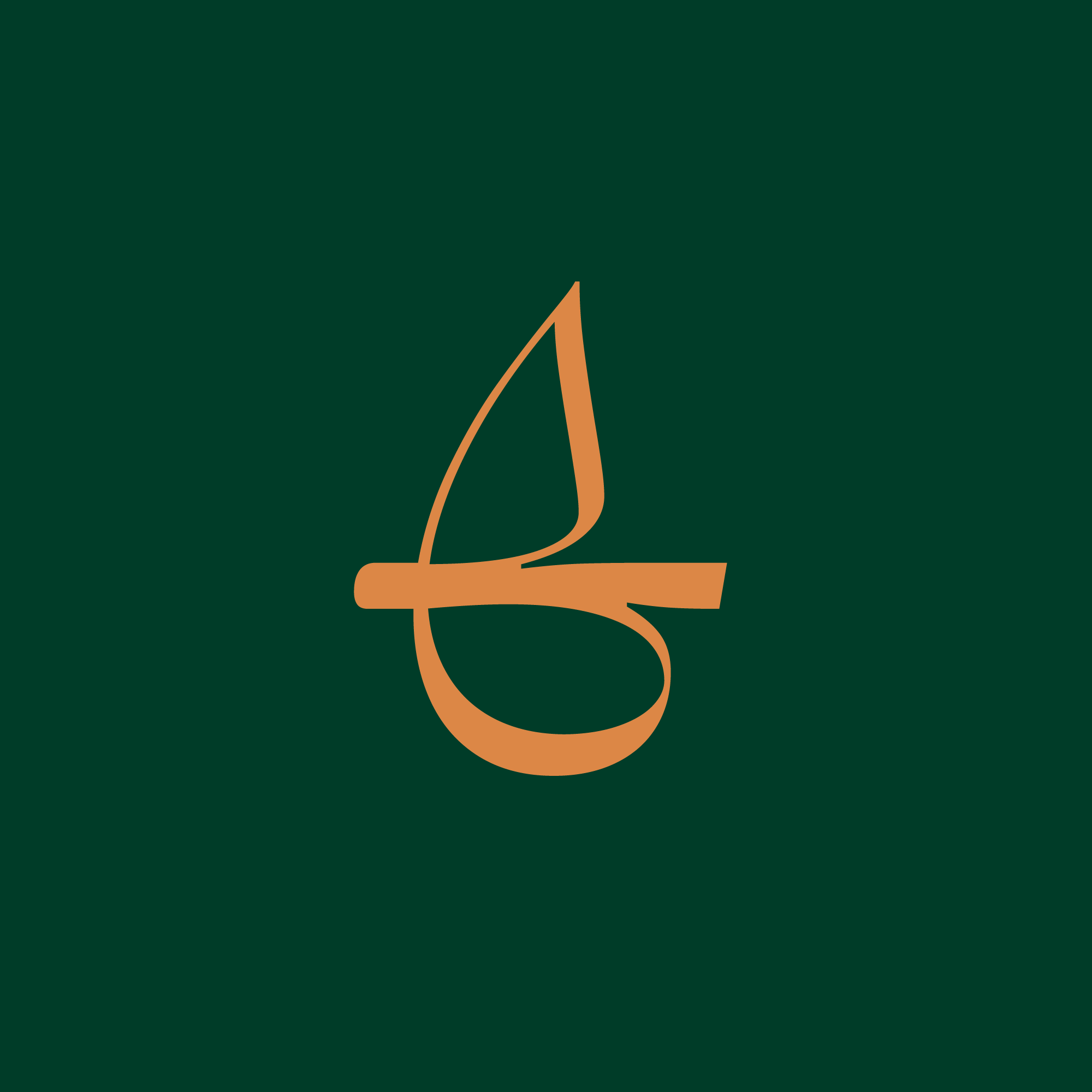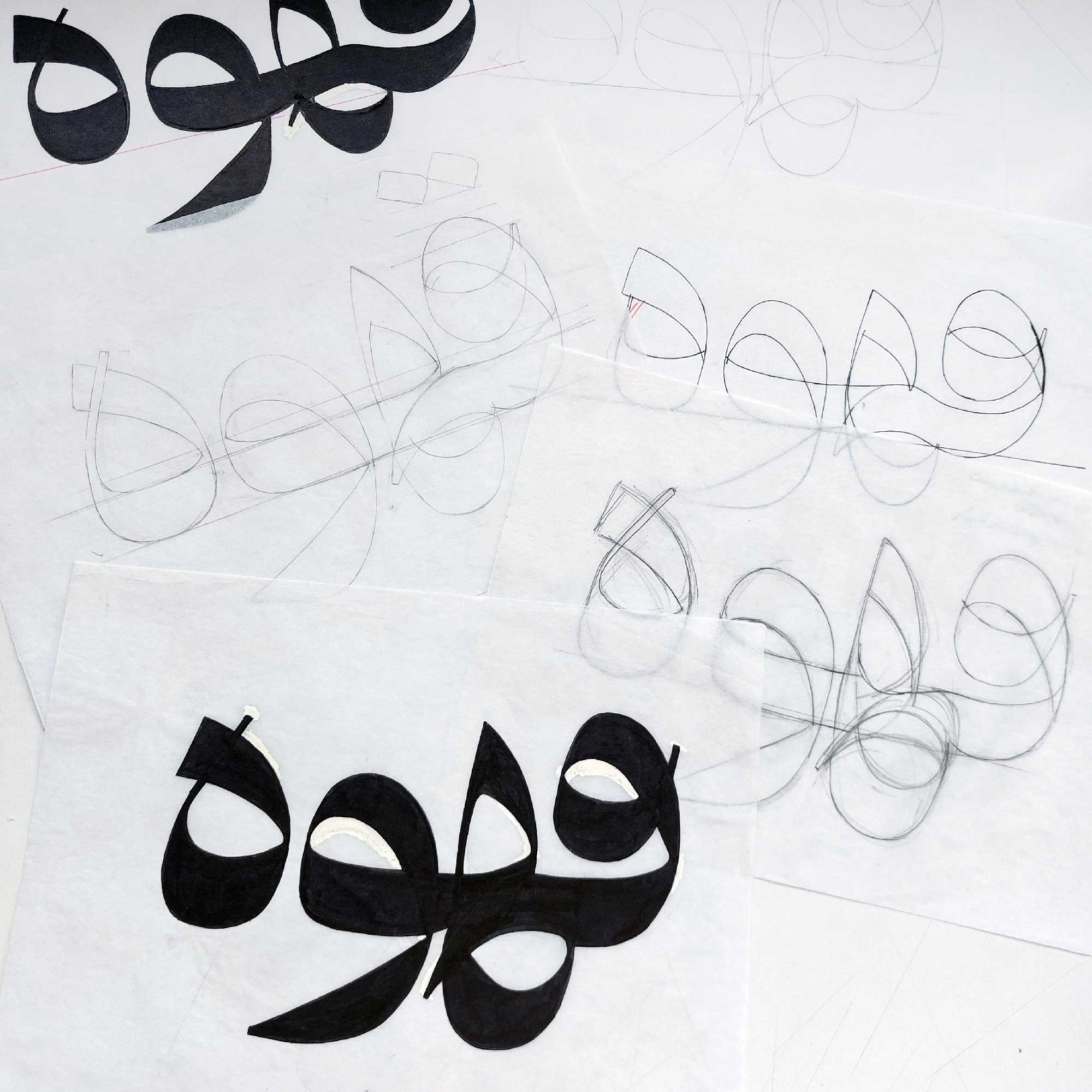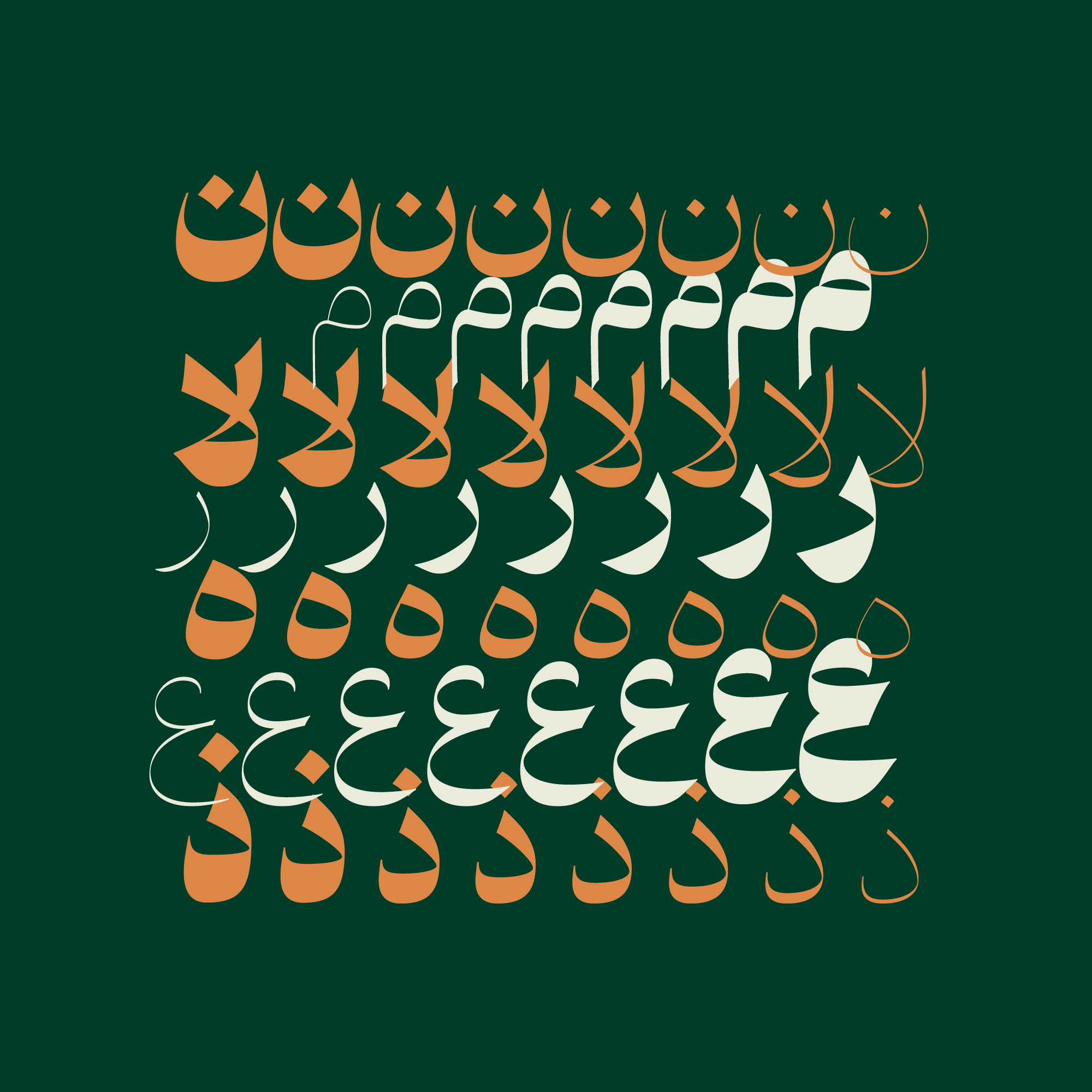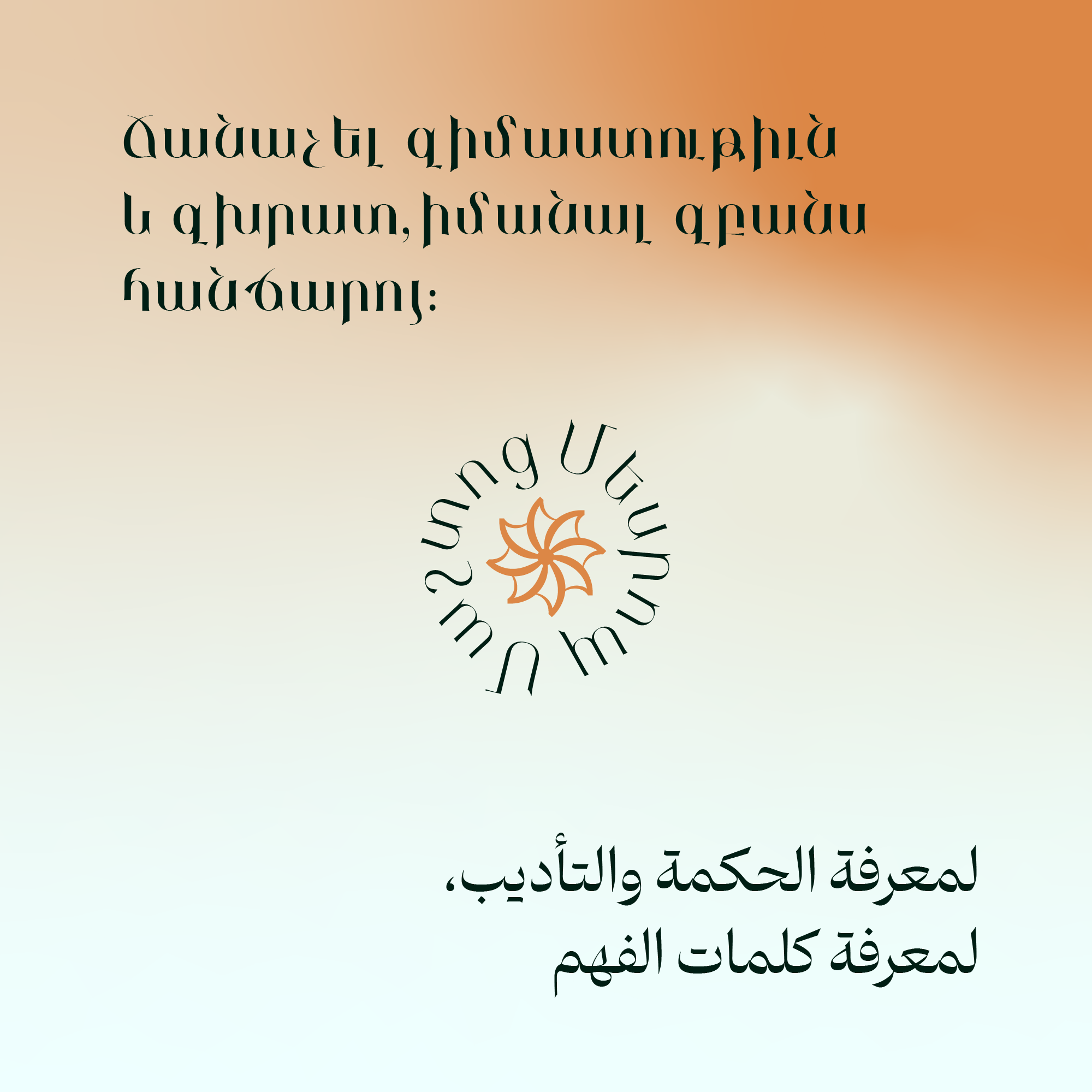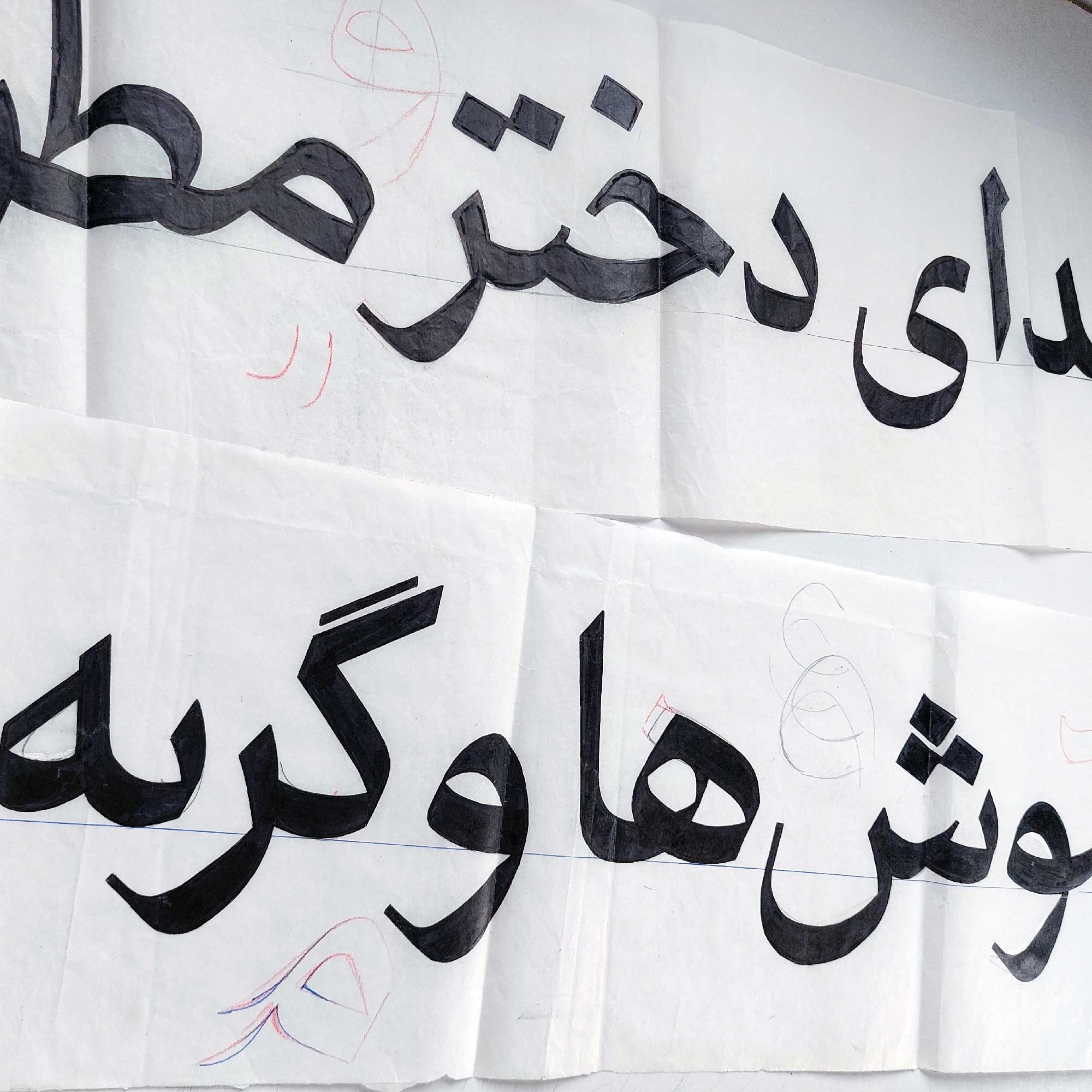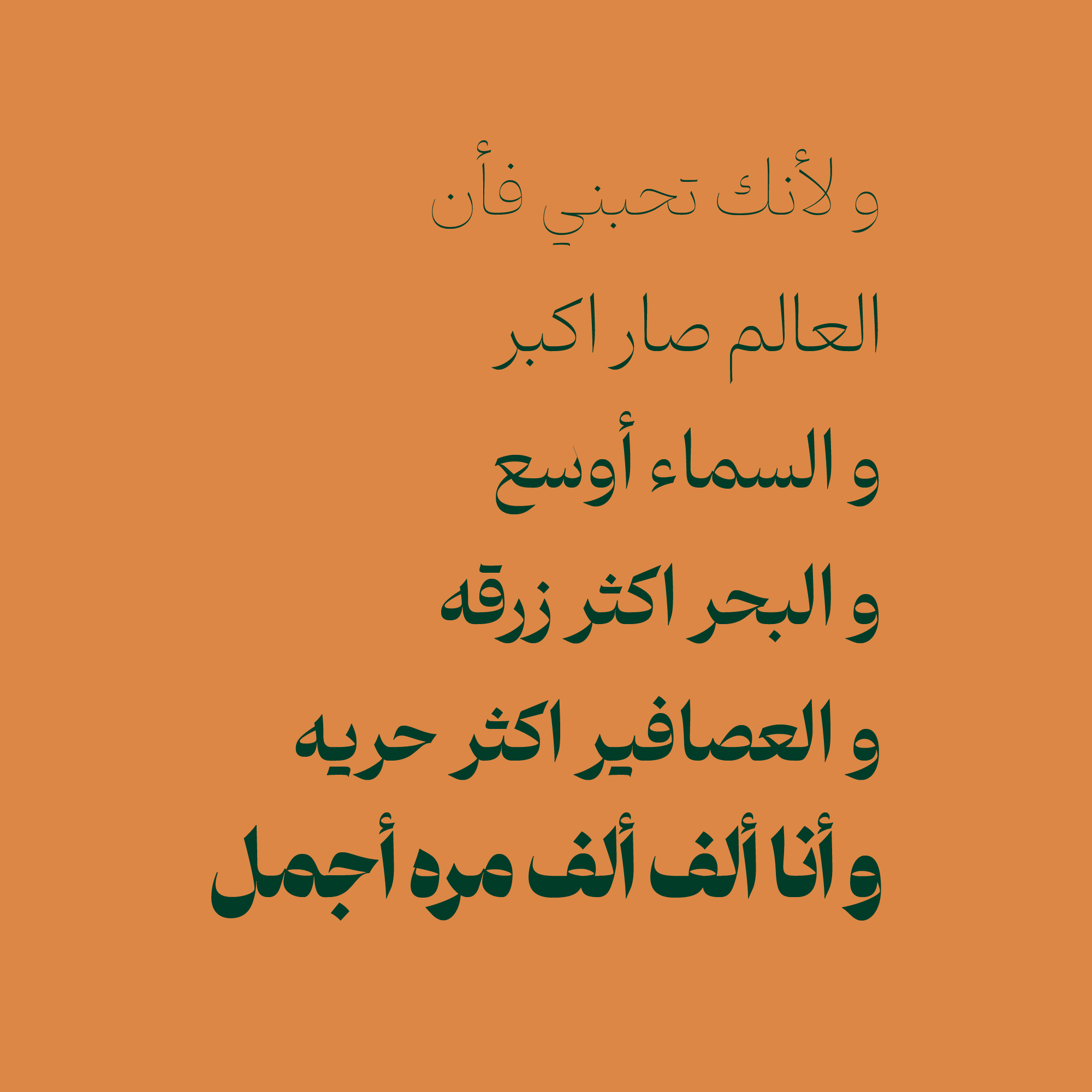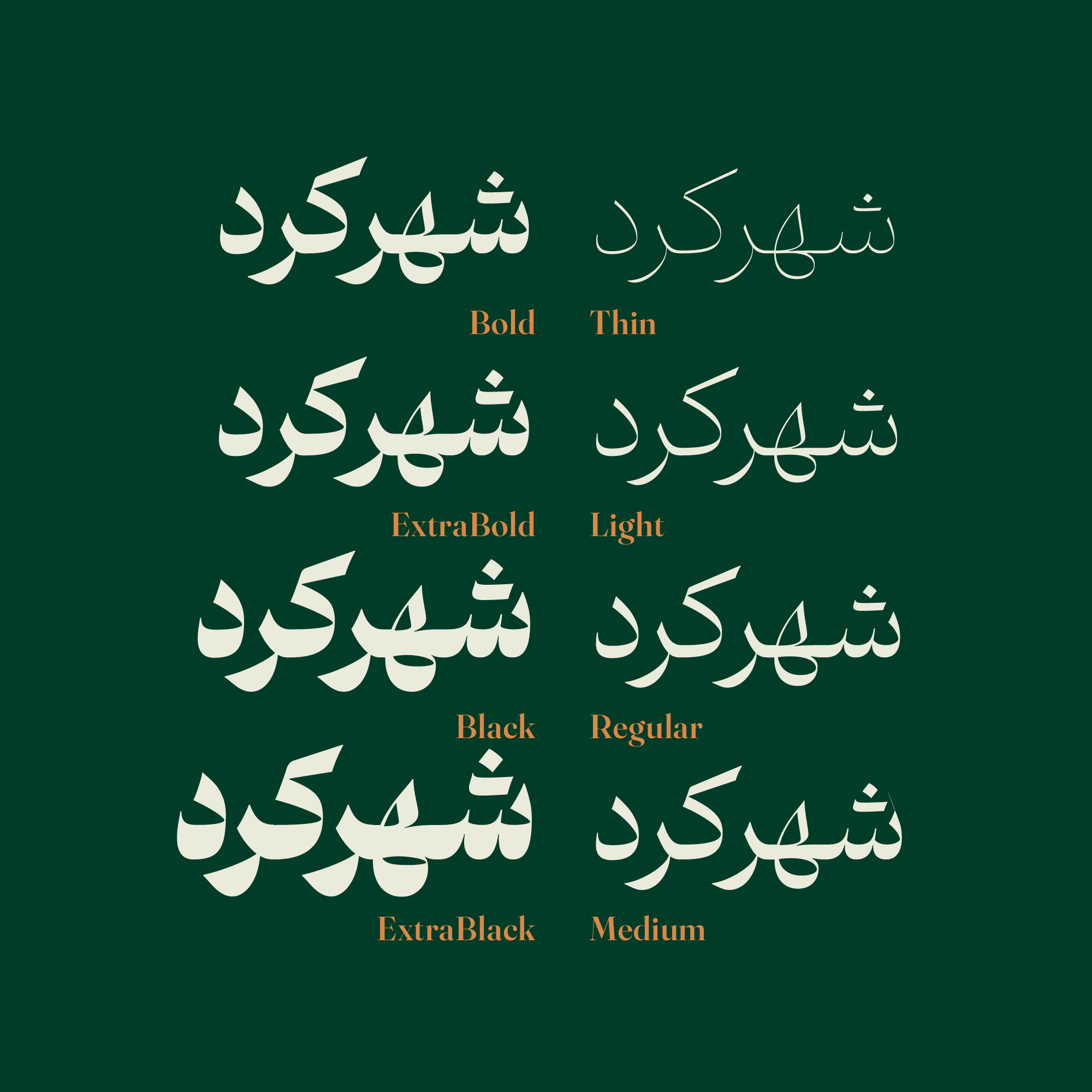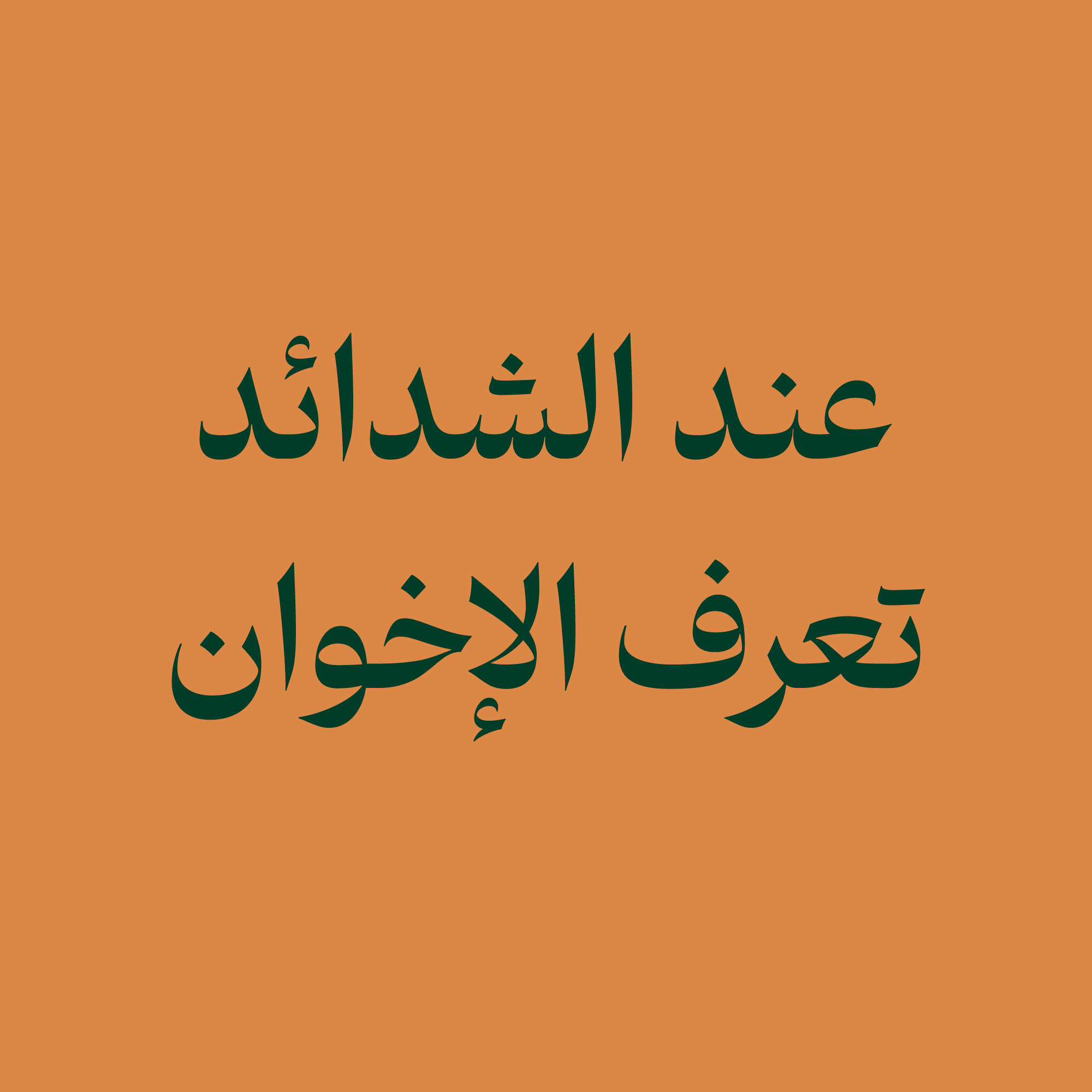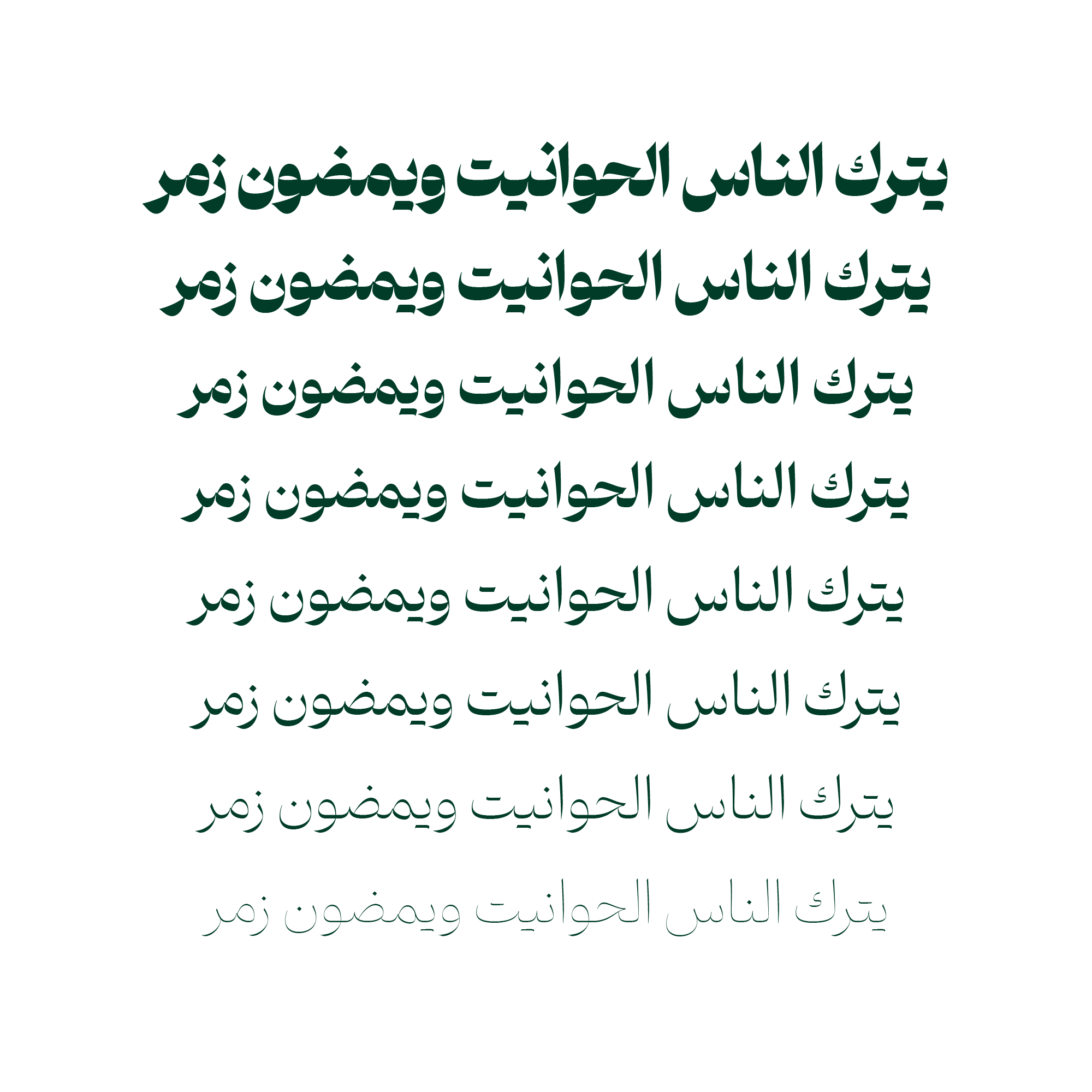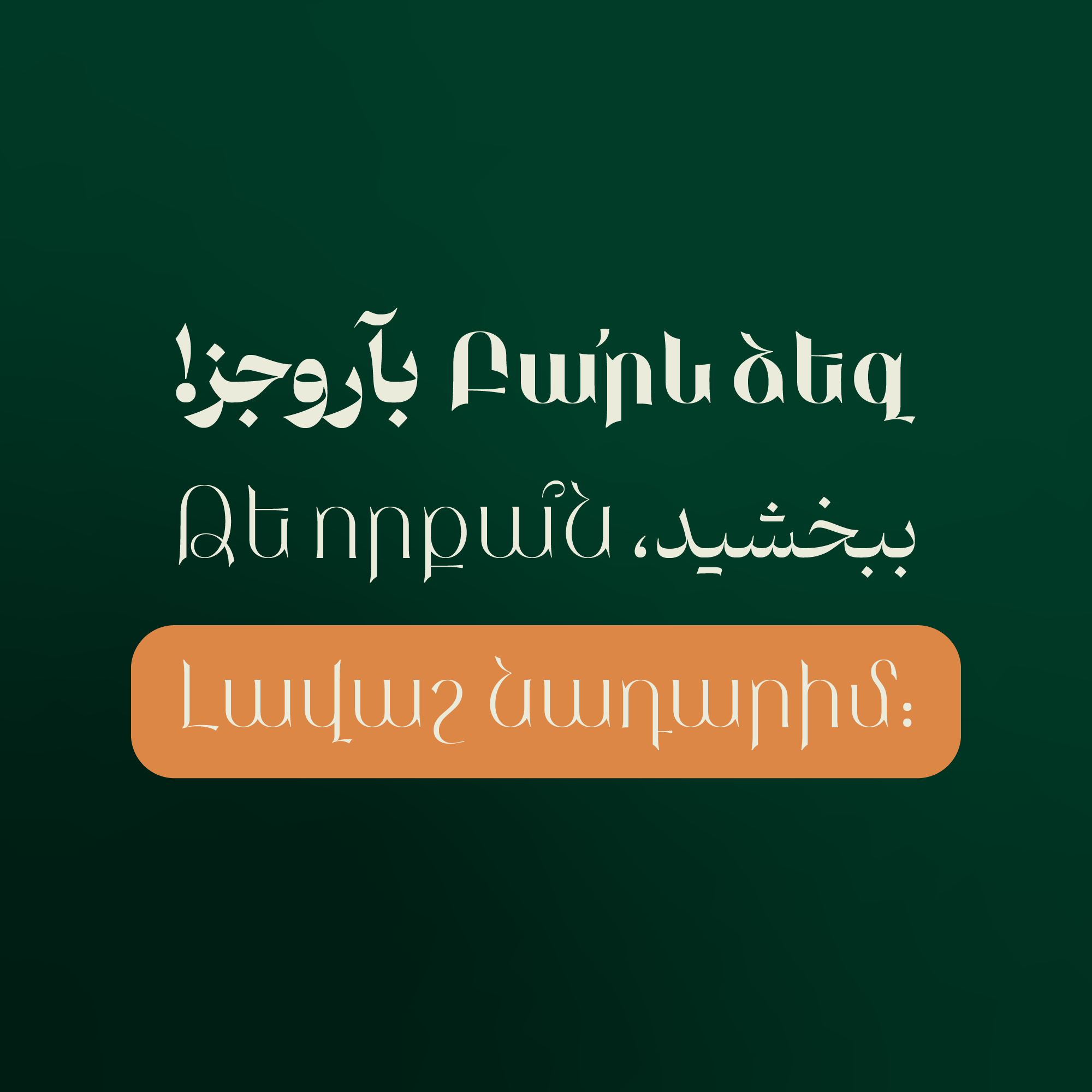
Doran
Weight Variety in Doran Font
Doran comes in 8 weights — Thin, Light, Regular, Medium, Bold, ExtraBold, Black, and ExtraBlack & Variable Font.
Alternate Dot Styles
The typeface includes two dot styles: Joined and Classic (detached).
Armenian Support
A complete set of Armenian characters has been specially designed for Doran.
Rial and Toman Symbols
Enable Stylistic Set 2 to access dedicated Rial and Toman symbols. Stylistic Set 3 provides symbols for Saudi Riyal and UAE Dirham.
Vertical Alignment for Symbols
Use Stylistic Set 4 to fine-tune the vertical alignment of numerals, punctuation, and currency signs.
Tabular Numbers
Tabular figures are included for perfect numeral alignment in tables and data layouts.
Ligatures and Alternates
Doran includes ligatures and alternative letterforms that enhance the beauty and rhythm of text.
Visual Language and Design Pattern